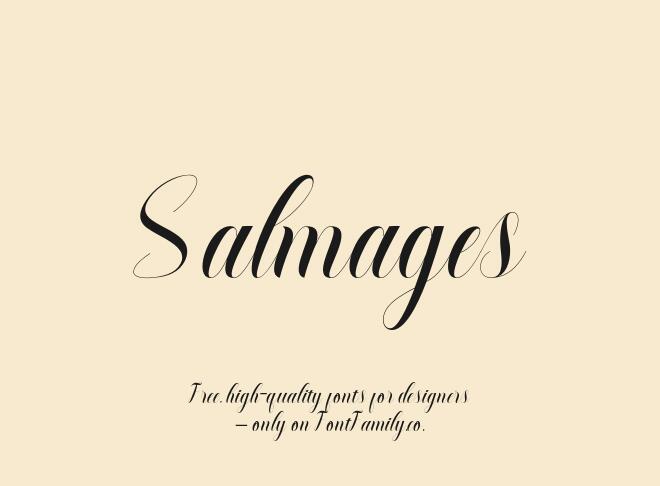
Salmages Font
Salmages Font is an elegant, minimalistic typeface with a touch of handwritten script style, designed by FontSpring Foundry. With its clean lines and delicate curves, it breathes sophistication and modernity into any design. The simplicity of Salmages Font makes it a perfect fit for branding, logo design, and editorial content, adding an air of understated elegance. It's reminiscent of classic script fonts but with a contemporary edge that makes it stand out. The font is versatile and intuitive, adapting beautifully to both digital and print designs. Its unique blend of elegance and readability makes Salmages Font a top choice for designers who wish to add a touch of modern simplicity to their projects.